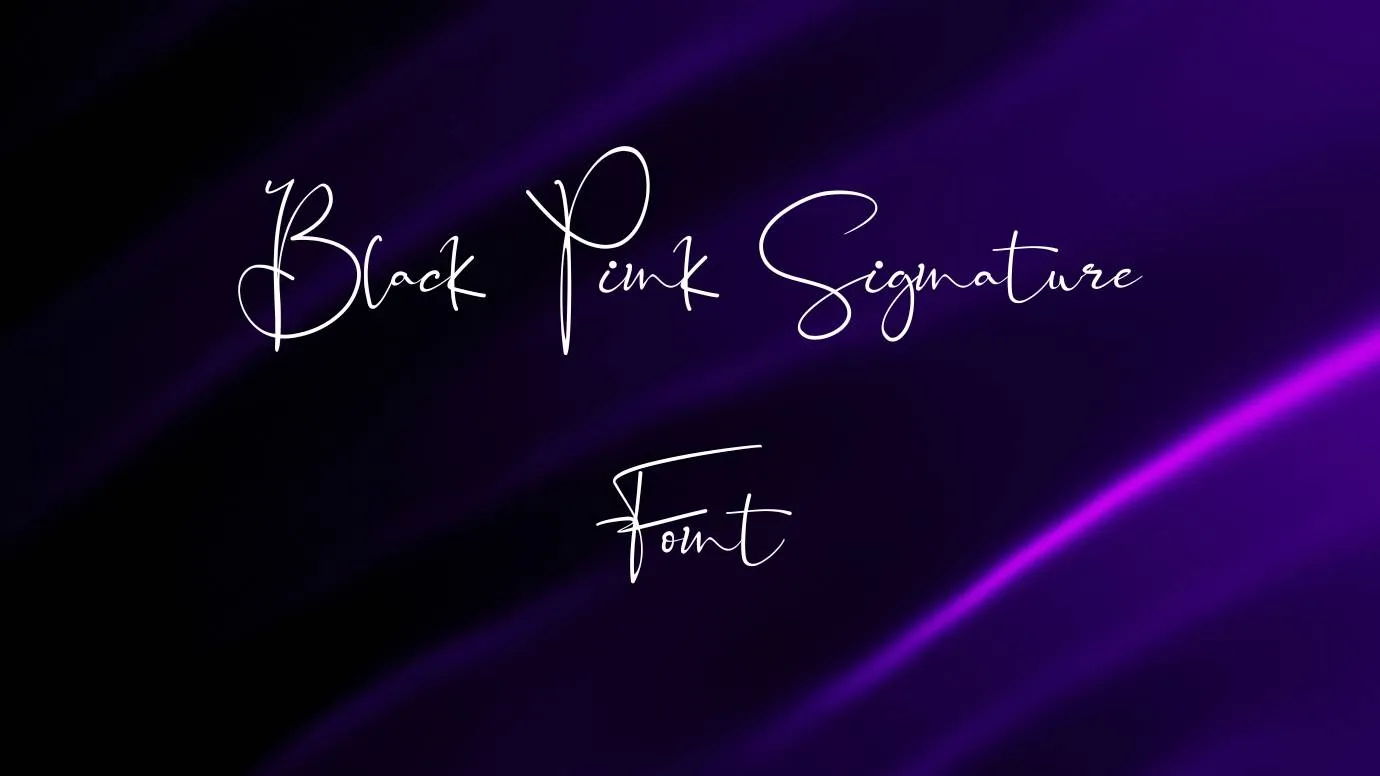
Black Pink Signature Font Family was created by the well-known Letterara typographic foundry. Numerous uppercase letters, common punctuation, digits, and special characters are available in this distinctive typeface.
Black Pink Signature Font